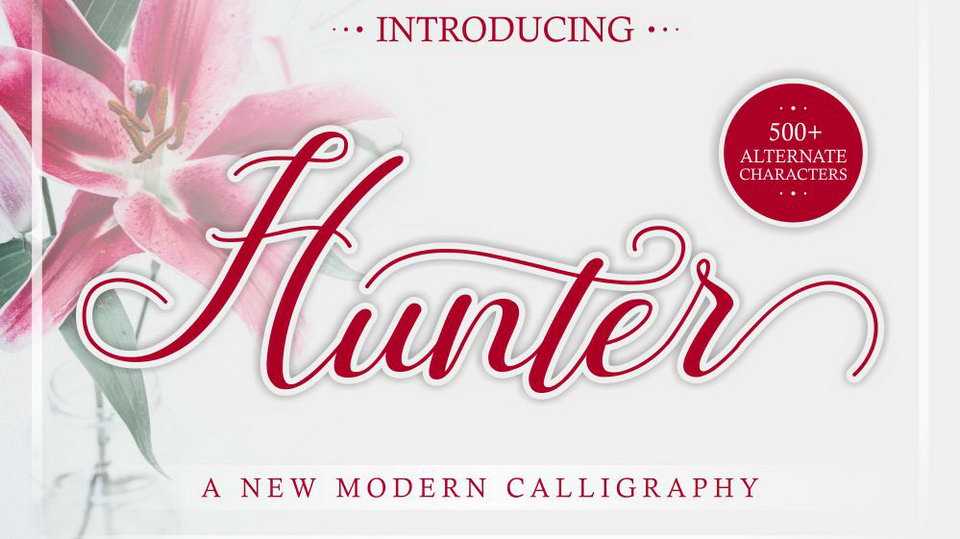
Download Hunter font – a lovely connecting script with a dancing baseline, designed to convey elegance and style. It is clean, feminine and friendly.